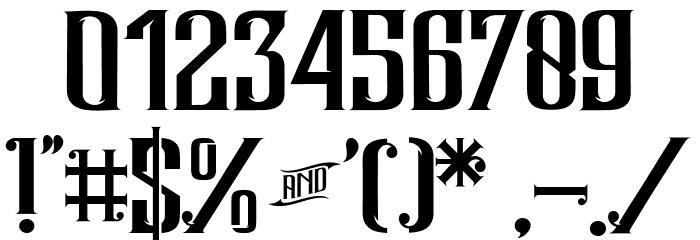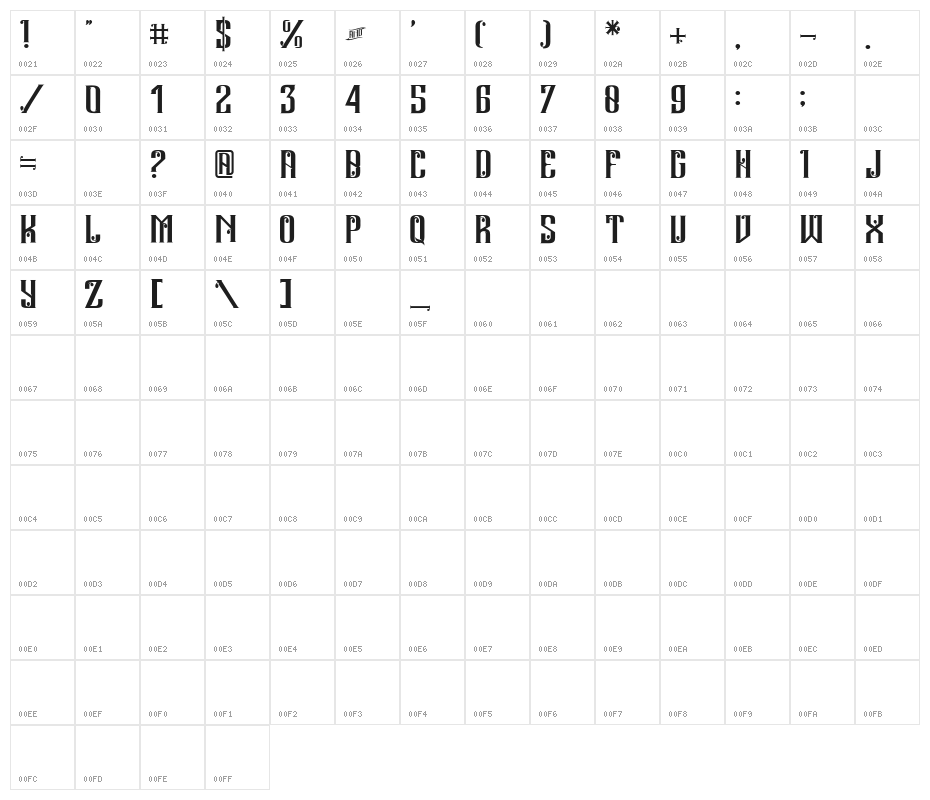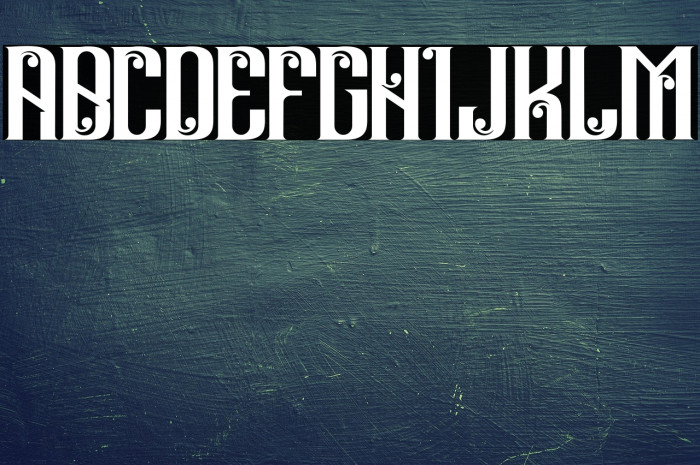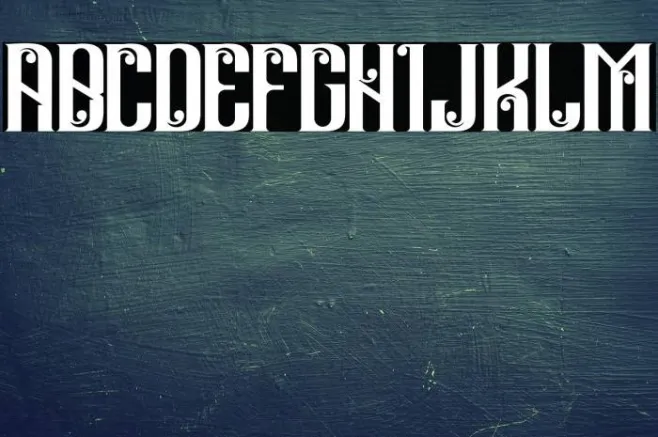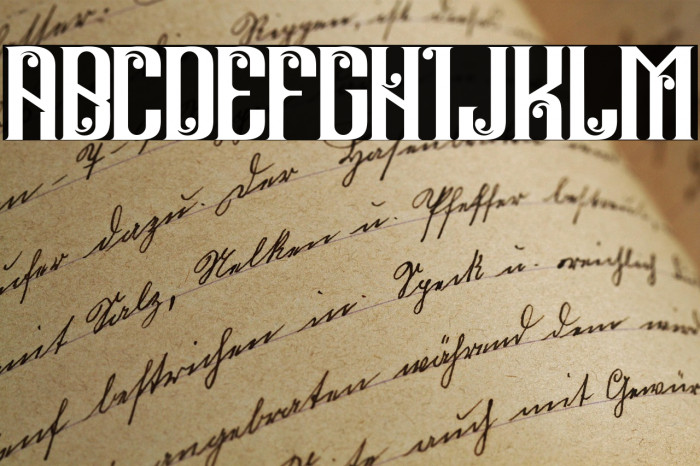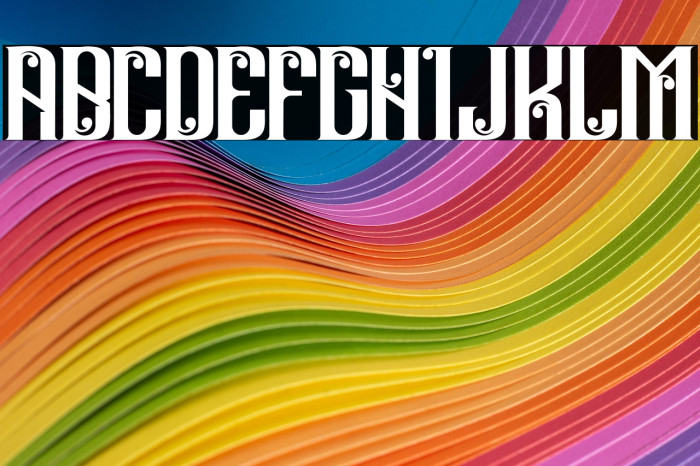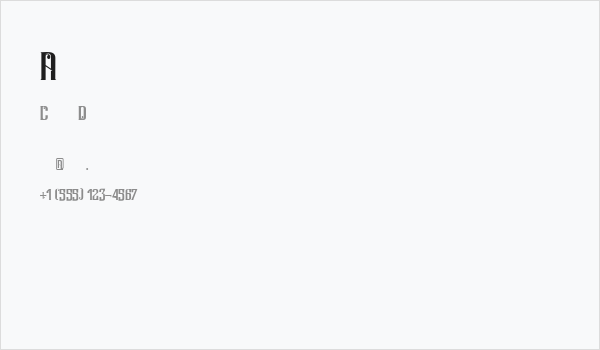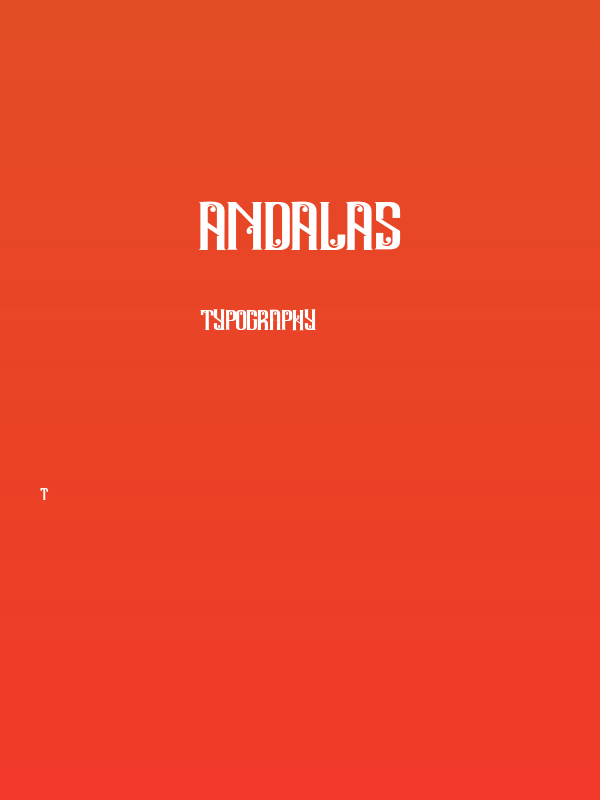
Andalas Font
Andalas Description
This font features a bold and decorative style with intricate details that add a unique flair to each character. The uppercase letters are particularly striking, with ornate embellishments that give them a vintage and artistic appearance. The numbers and special characters maintain this decorative theme, making the font suitable for creative and eye-catching designs. Its bold weight and high contrast between thick and thin strokes enhance its visual impact, making it ideal for standout headlines and titles.
| Overall Style | Vintage, Decorative |
| Proposed Projects | Ideal for posters, logos, branding, and any project requiring a bold, artistic touch. |